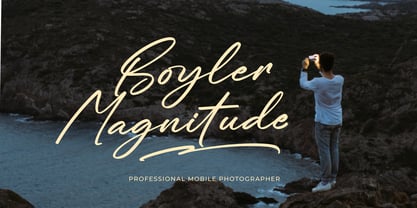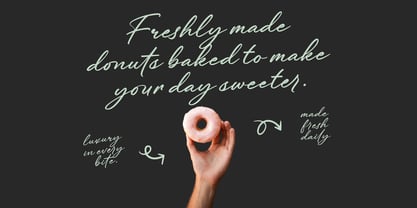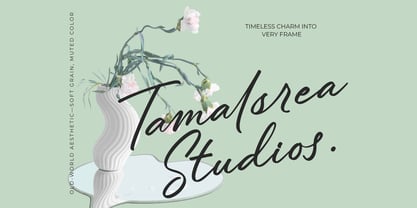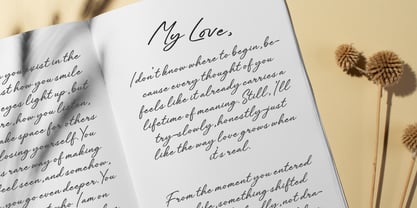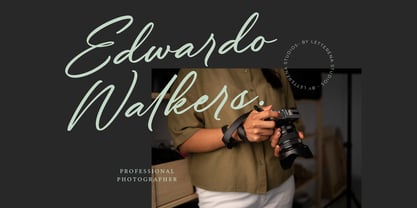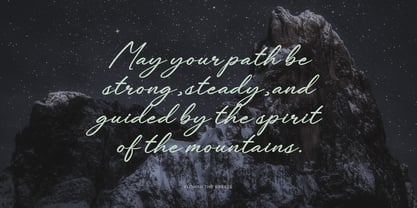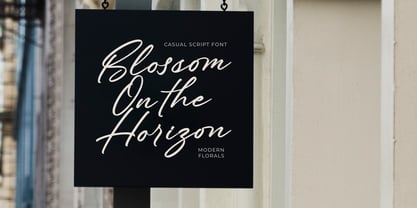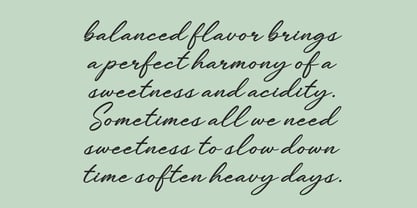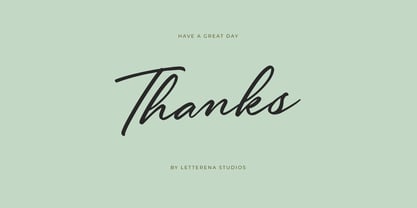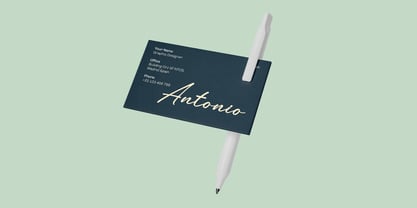
Flowers the Breeze
by Letterena Studios
The Flowers the Breeze Font Family was designed by Heru Utama Putra and published by Letterena Studios. Flowers the Breeze contains 2 styles and family package options. More about this family
Flowers the Breeze is a refined handwritten script font with a soft, airy flow and natural letter rhythm, crafted to bring elegance and sophistication to branding, product packaging, wedding stationery, boutique logos, feminine design themes, and social media graphics. Its smooth curves, clean stroke contrast, and graceful handwritten structure create a calm yet premium visual presence, making it versatile for modern creative work that requires a personal, stylish, and polished handwritten touch.